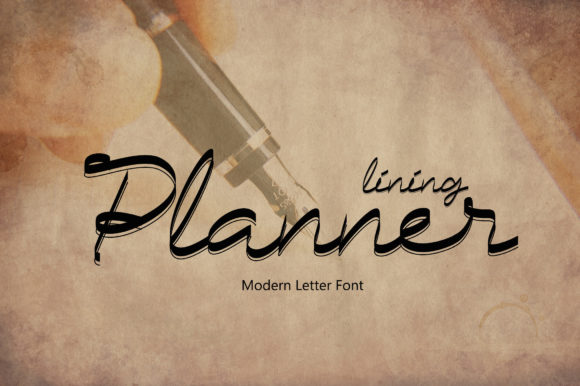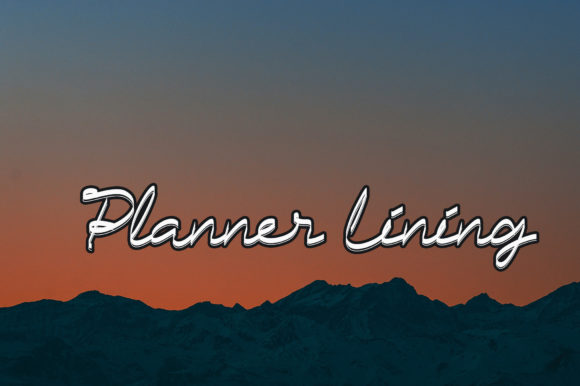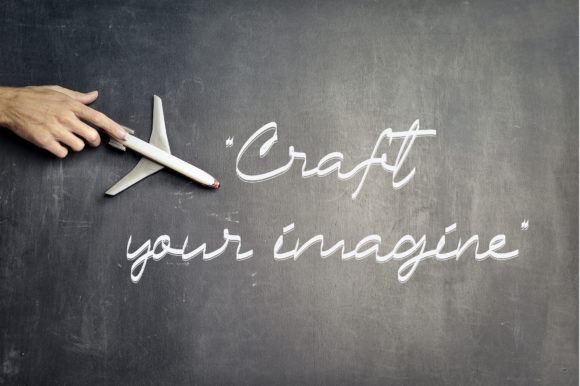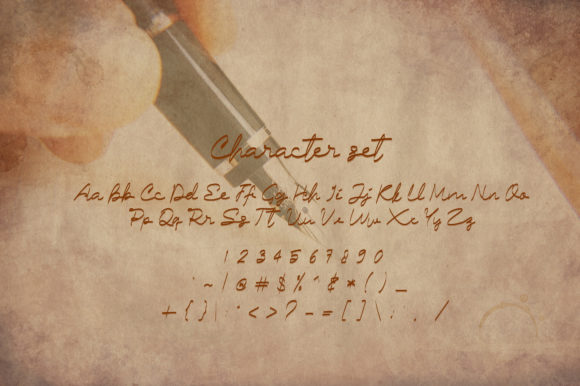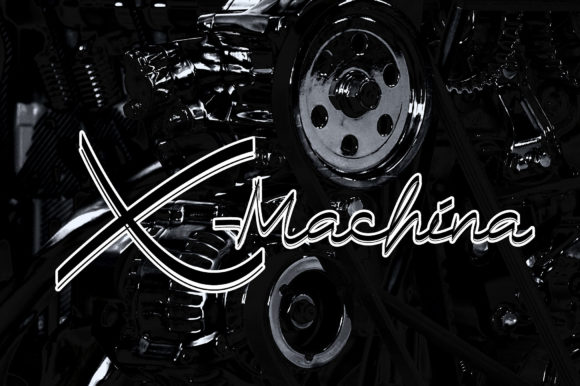
Planner Lining Font
About Planner Lining Font
Planner Lining is a beautiful and cursive script font that exudes elegance and style. With its flowing and graceful characters, this font is the perfect choice for creating eye-catching logos, branding materials, and quotes that leave a lasting impression.
The beauty of Planner Lining lies in its intricate details and unique touches. Each letter has been meticulously crafted to showcase its own charm and personality, ensuring that your design stands out from the crowd. Whether you’re designing a logo, creating branding materials, or crafting impactful quotes, this font adds a touch of sophistication and allure.
The cursive nature of Planner Lining enhances the fluidity and rhythm of your design. It brings a sense of elegance and grace, making it ideal for projects that require a refined and stylish look. The letters flow seamlessly, creating a visually captivating composition that draws the viewer’s attention.
Planner Lining’s versatility allows it to adapt to various design projects, ensuring that it complements the desired style and theme. Whether you’re working on print materials, digital graphics, or social media posts, this font elevates your design and brings it to life.
By incorporating Planner Lining into your designs, you infuse them with a touch of sophistication and beauty. The font’s cursive script style creates a visually captivating look that captures attention and conveys a sense of elegance. Embrace the unique and beautiful touch of Planner Lining and watch as your design comes alive with its enchanting presence.
In summary, Planner Lining is a beautiful and cursive script font that adds a touch of elegance and style to your designs. Its unique and intricately designed letters make it the perfect choice for eye-catching logos, branding materials, and quotes. Embrace the charm of Planner Lining and let it bring your design to life with its captivating beauty.